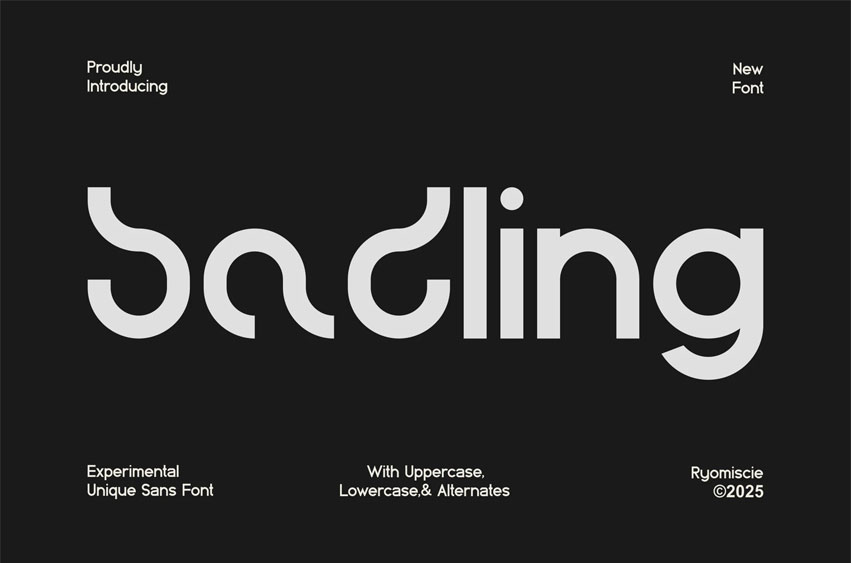
Badling Font
Badling Font Modern Font is a bold and authentic display font. The font is suitable for any branding project, like logos, esport, and many more.